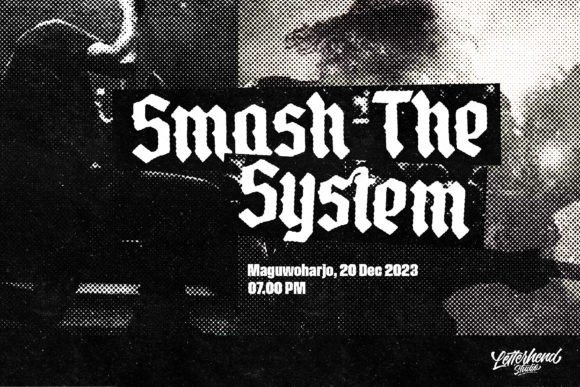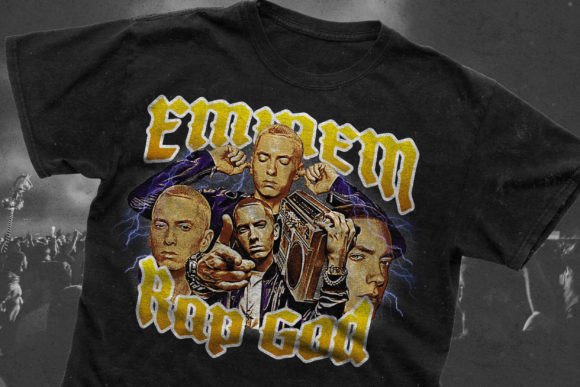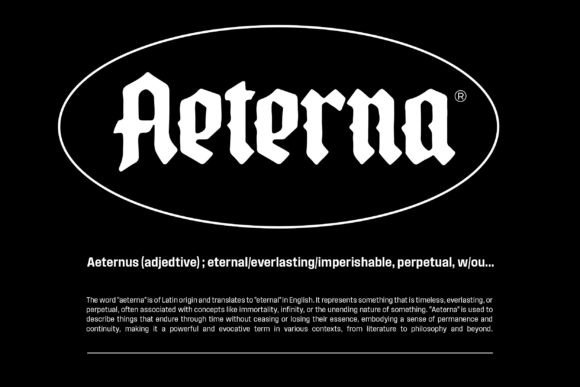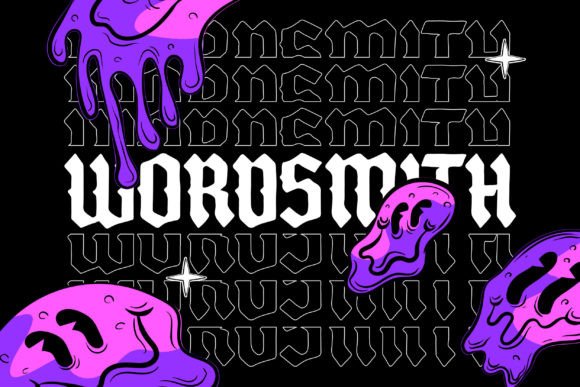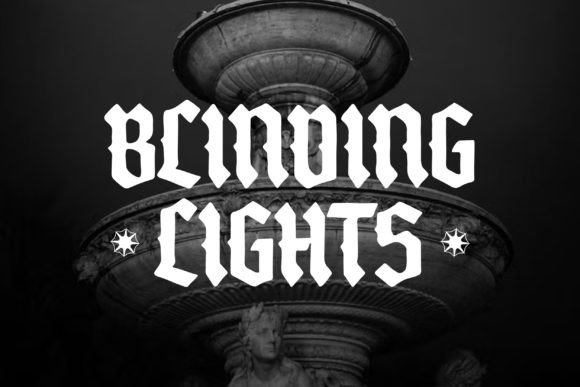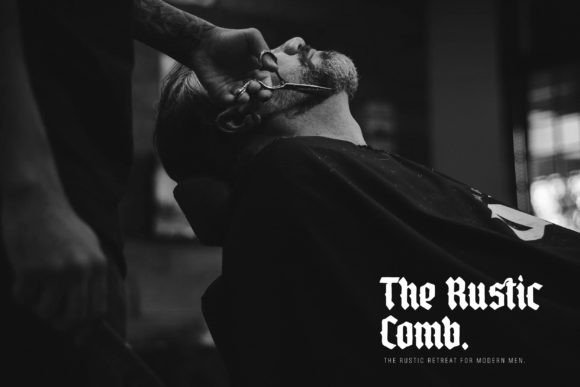
The Art of Typography: Unveiling the Chariot Font
Have you ever been sitting at your desk, staring blankly at a blank page, waiting for inspiration to strike? That’s where the magic happens. For designers, the perfect font can be the spark that sets creativity ablaze. And, trust us, the Chariot Font is that spark.
Meticulously crafted by Letterhend Studio, the Chariot Font is a masterpiece that effortlessly blends the classic heritage of blackletter fonts with a touch of organic charm. This exquisite font is not just a work of art, but a valuable tool for designers looking to add a unique touch to their projects.
With its classical elegance and modern appeal, the Chariot Font is a must-have for any designer looking to elevate their typography game. Whether you’re working on a luxury brand or a creative campaign, this font is sure to leave a lasting impression.
Chariot Font Key Features
- Font Family: Chariot
- Unique Characteristics: Elegant, modern design with a touch of sophistication, suitable for a variety of applications including branding, advertising, and editorial content
- Font Weight: Available in 4 weights: Light, Regular, Medium, and Bold
Chariot Font Review
As a designer, I’ve had the chance to play around with Chariot Font, and I must say it’s been a mixed bag. Here’s my honest review.
- Chariot Font has a unique, modern feel to it that can add a touch of sophistication to any design project.
- The font is highly customizable, allowing you to adjust the weight, spacing, and even add ligatures to create a more personalized look.
- The font’s x-height is well-balanced, making it easy to read, even at smaller font sizes.
- One of the biggest limitations of Chariot Font is its lack of support for certain languages, such as Arabic or Chinese.
- The font can be quite heavy, making it unsuitable for projects where a more delicate touch is needed.
- The font’s glyph set is not as comprehensive as some other fonts, which can lead to inconsistencies in certain character combinations.
While Chariot Font has its limitations, it’s still a solid choice for designers looking for a modern, customizable font. With a little patience and creativity, it can add a lot of value to any design project.
Chariot font is ideal for creating eye-catching titles and headings in Canva.
Chariot font is perfect for creating bold and elegant typography in your designs.
Chariot font is ideal for creating professional-looking presentations and documents.
Tips for Getting the Most Out of Chariot Font
Chariot font is a versatile font that can be used in a variety of designs. Here are some tips for getting the most out of it:
- Use it for bold and eye-catching titles.
- Pair it with a clean and simple font for body text.
Chariot font is commonly used for:
- Creating professional-looking presentations and documents.
- Designing eye-catching titles and headings